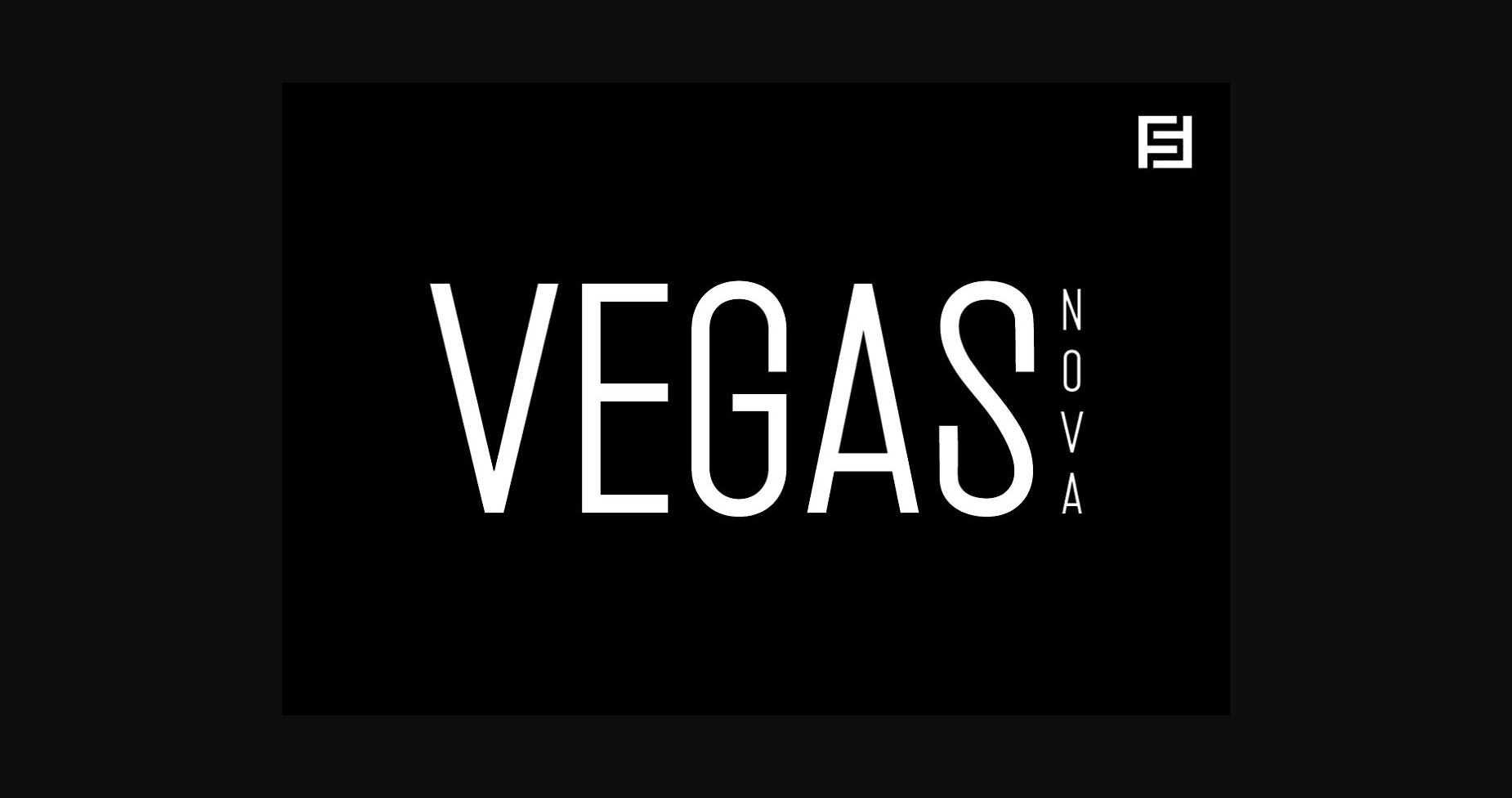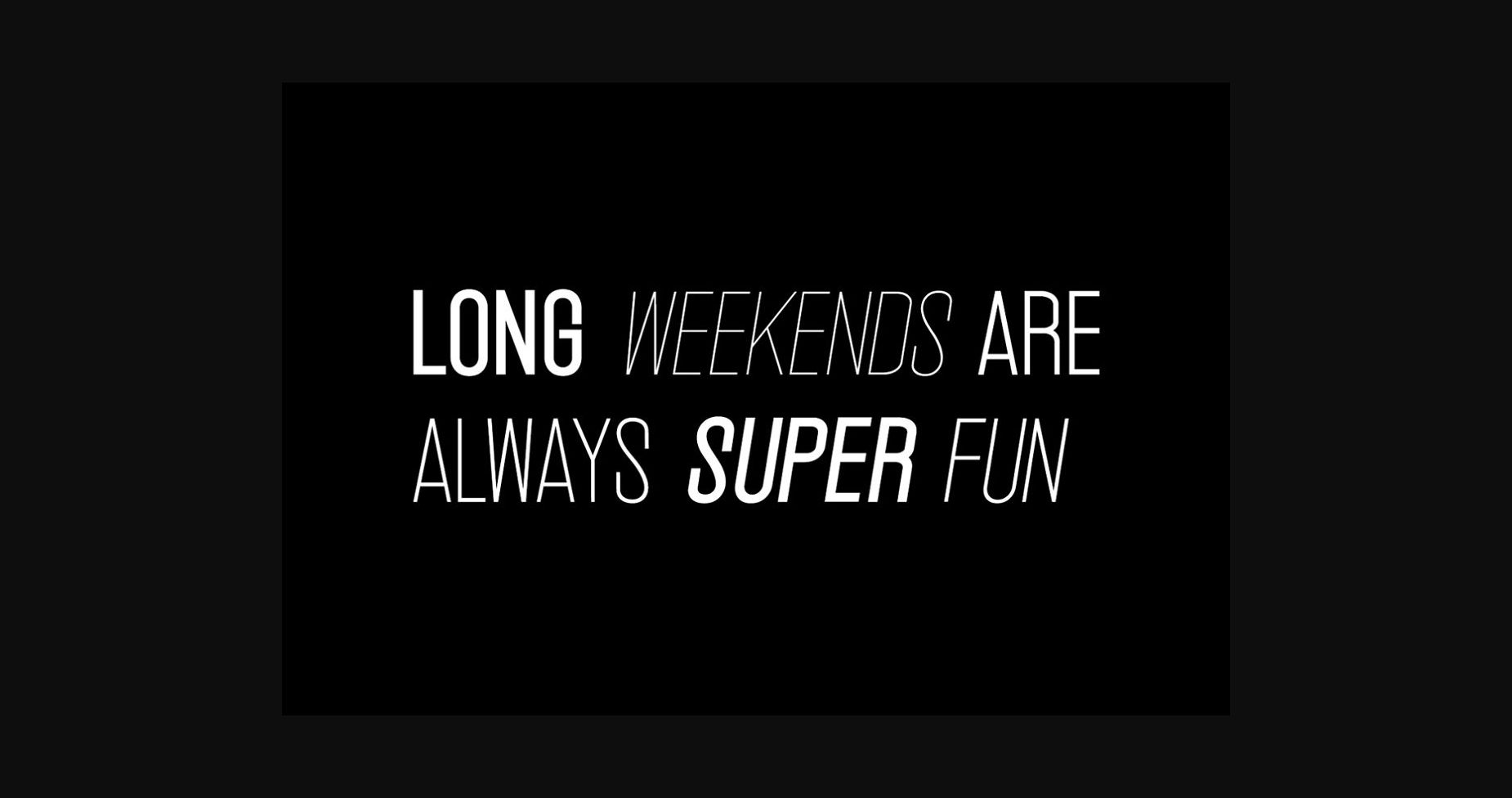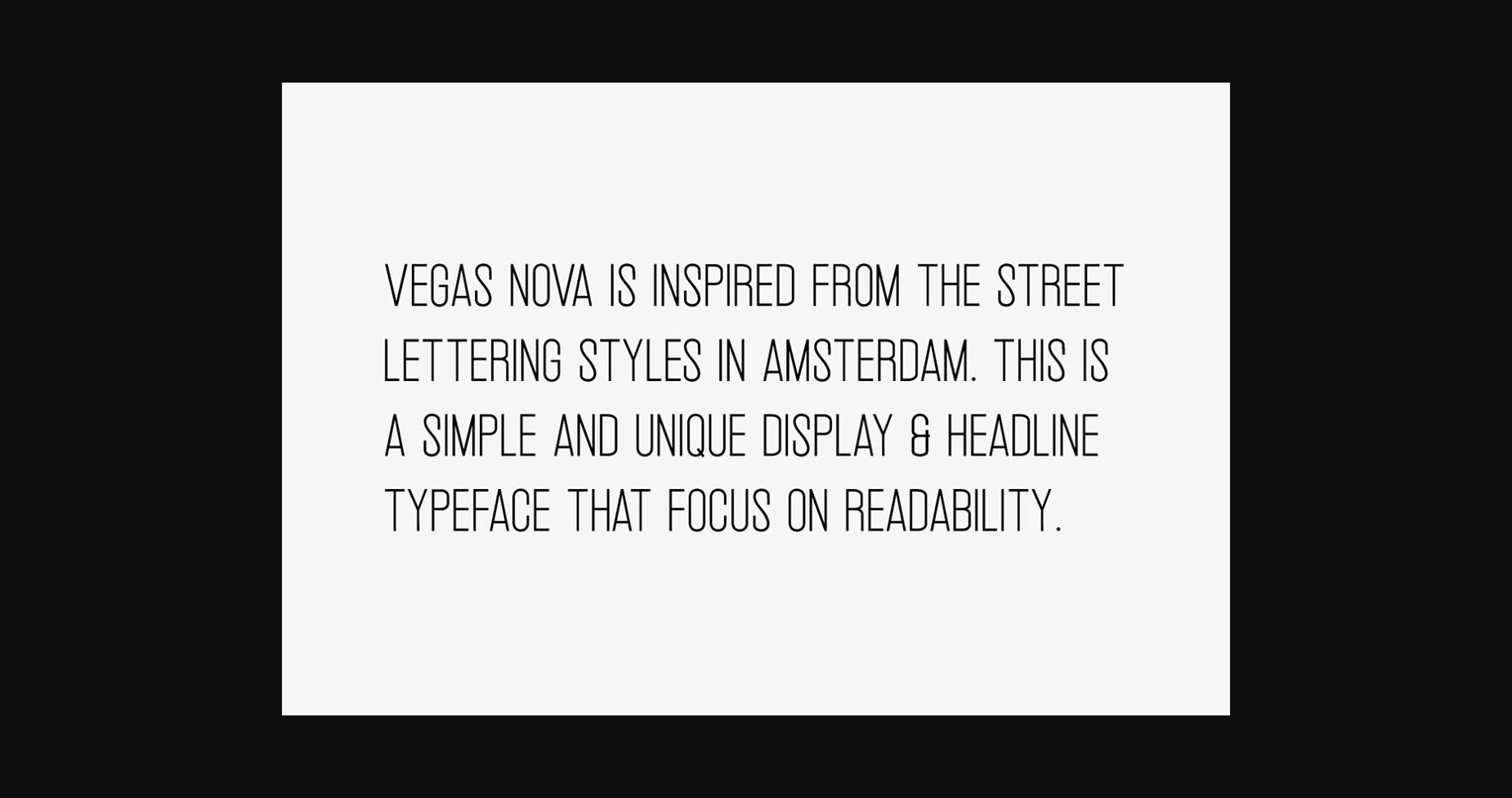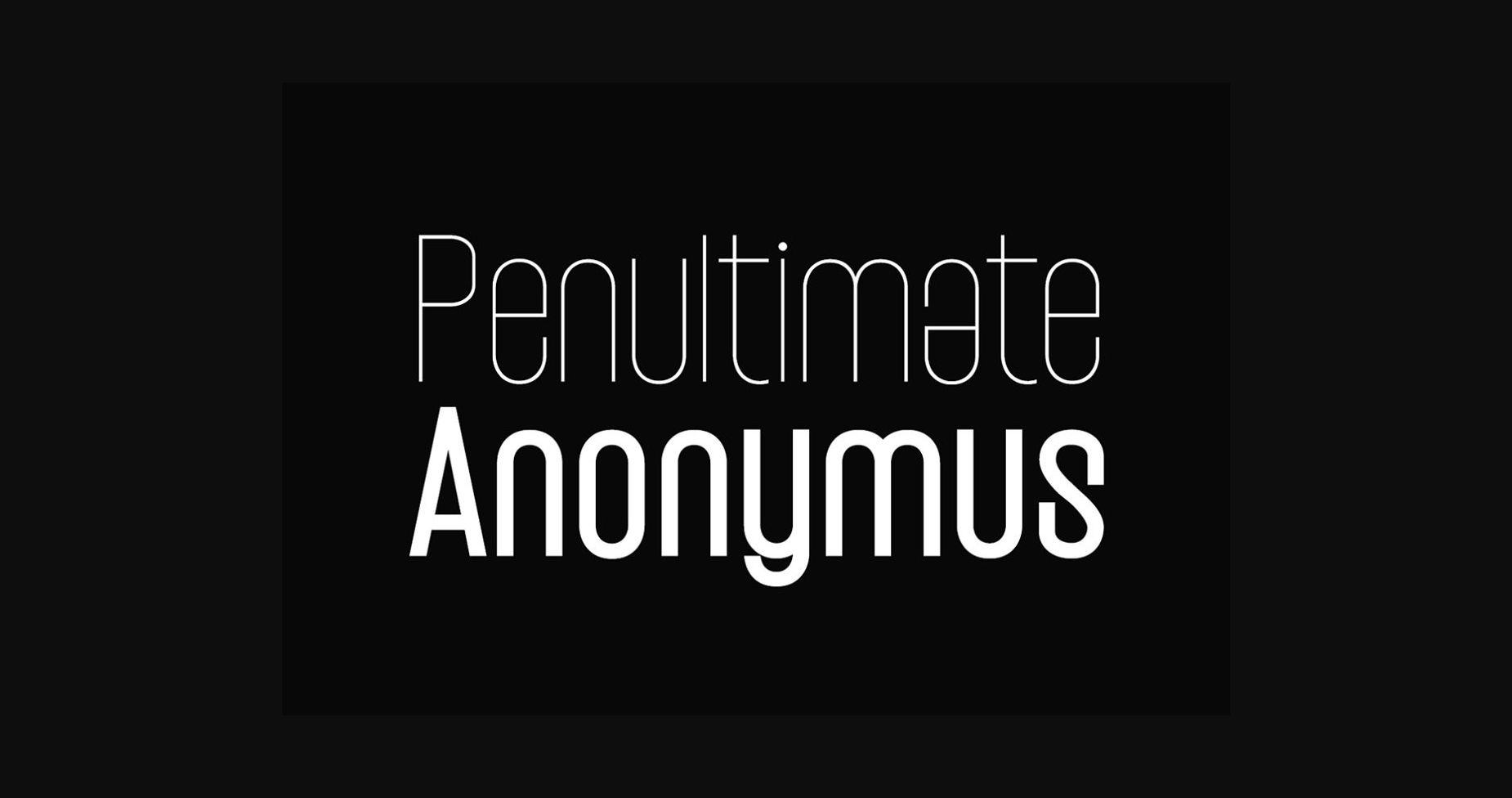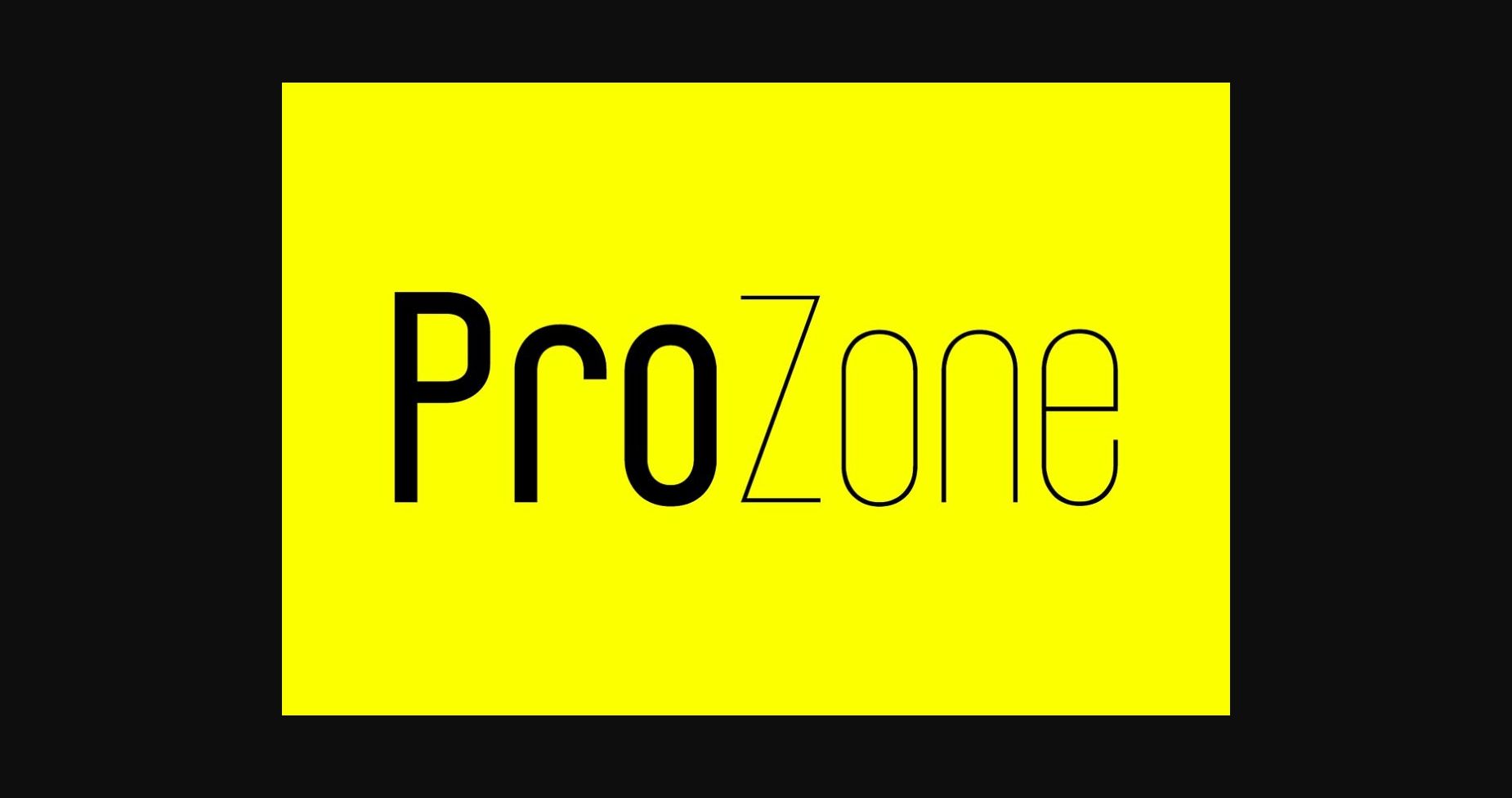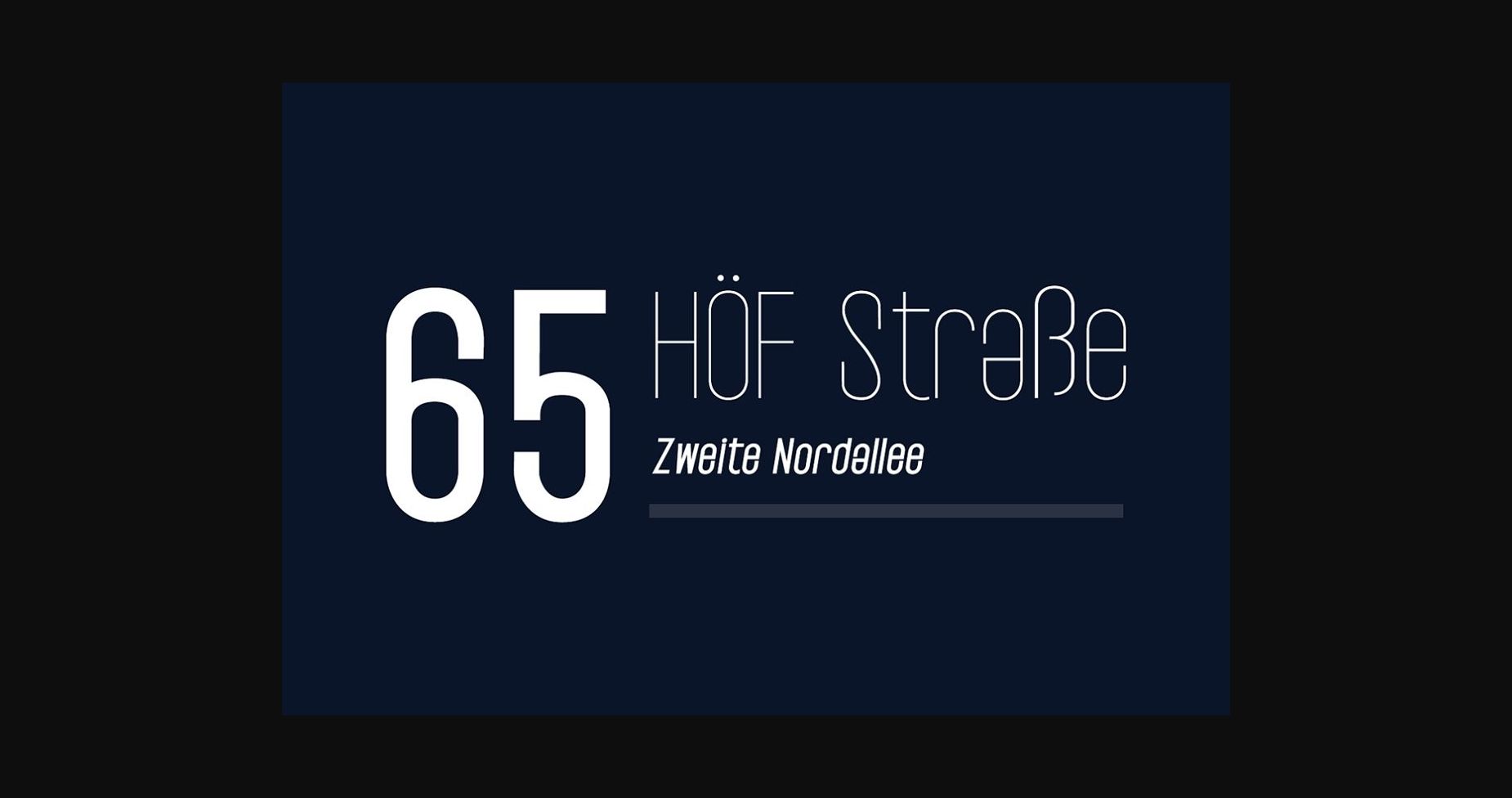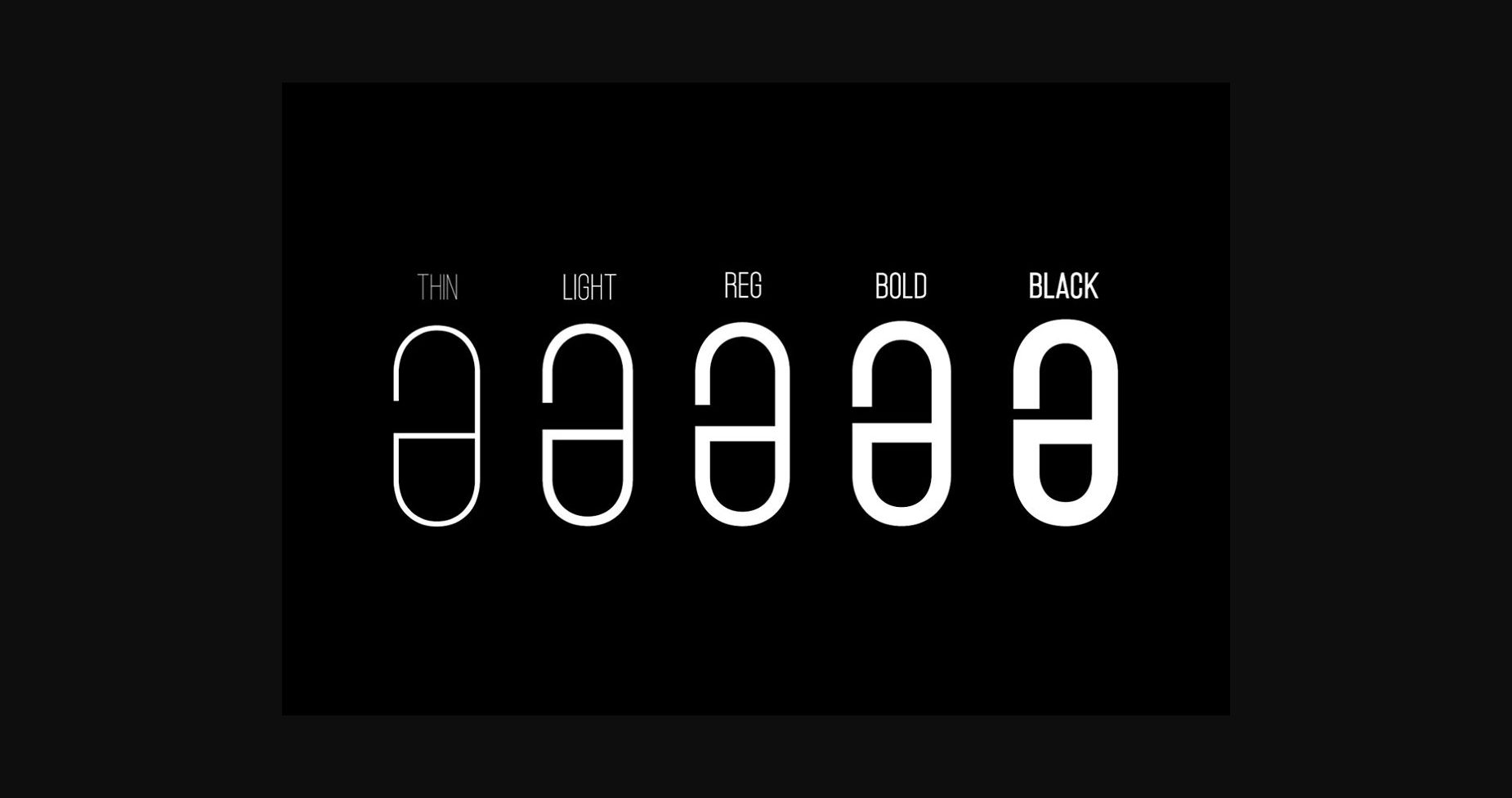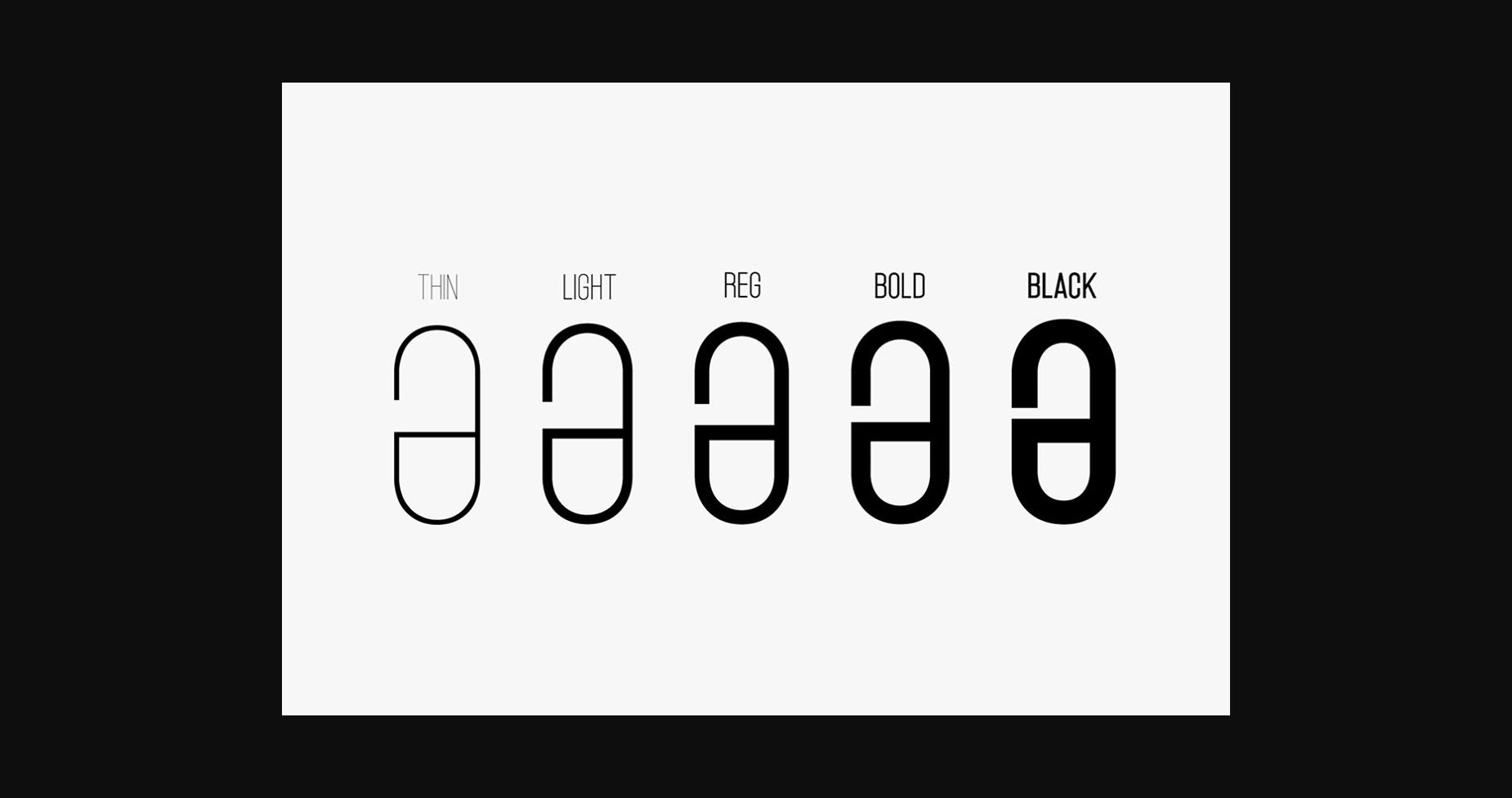
Vegas Nova Font
About Vegas Nova Font
Vegas Nova is a unique and modern sans serif font, specially designed for headlines, big text, branding, logotypes, and display usage. The typeface could be the perfect choice for marketing graphics, banners, posters, signage, and more!